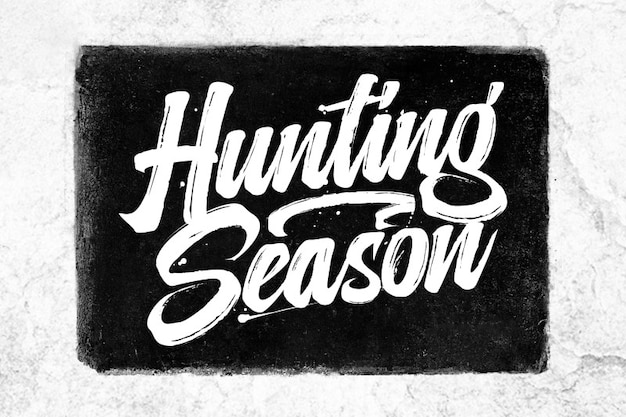
Hunting Season
Hunting Season Font
Hunting Season font is a wild adventure in brush lettering and captivating handwritten style. Each character is like a brushstroke of artistic flair, turning your text into a rugged masterpiece. It's perfect for adding an authentic touch of adventure to your projects. Hunting Season is the font that takes your words on a brush lettering safari, making every message a bold and untamed expression of creativity.
Hunting Season Regular (400)
Hunting Season Regular (Swash) (400)